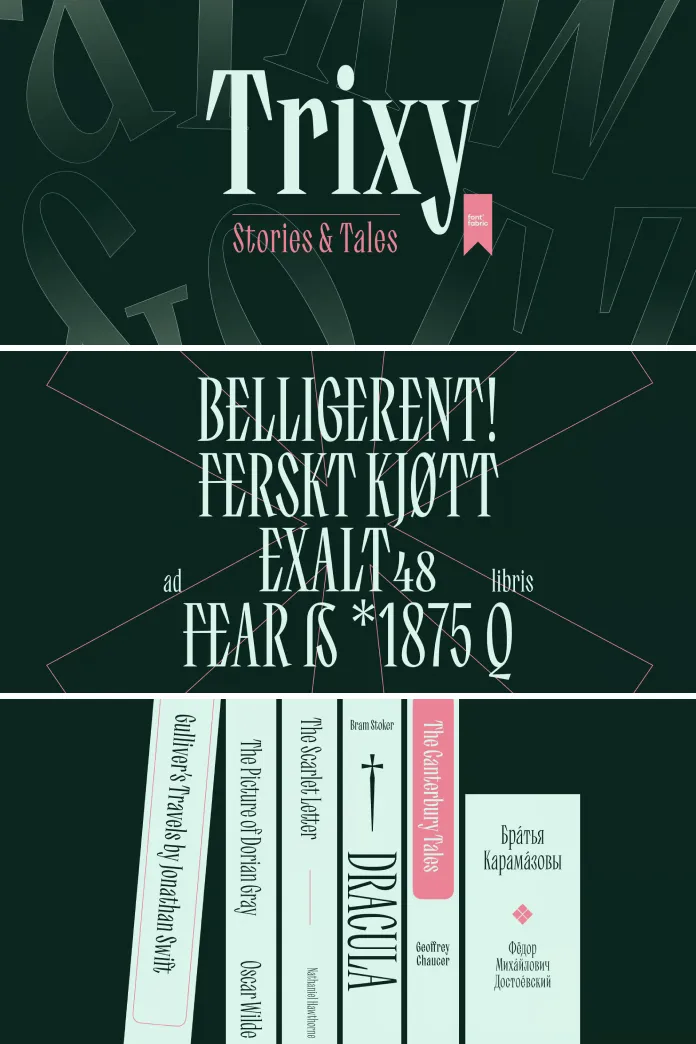
Soviet book covers from the 1950s and 60s were not supposed to be beautiful. They were functional. Yet the designers working under ideological and material constraints produced some of the most daring typographic experiments of the 20th century — condensed letterforms with razor-sharp serifs, extreme vertical stress, and a restless energy that still feels urgent today. The Trixy font family by Fontfabric reaches back into that archive and pulls something genuinely new out of it.
Released in October 2025 and designed by Vika Usmanova and Ivelina Martinova, Trixy is a condensed serif typeface built for expressive display typography. It is not a revival. It is not nostalgia dressed up in OpenType. Trixy is a systematic reinterpretation of experimental mid-20th-century Cyrillic lettering — one that functions as a fully modern, multilingual type system for editorial, packaging, branding, and digital design.
So why does this matter right now? Because the design industry has been simultaneously hungry for two things that seem to contradict each other: historical depth and contemporary precision. Trixy delivers both. And it does so with a structural clarity that makes it as useful as it is visually arresting.
What Makes the Trixy Condensed Serif Different from Every Other Retro-Inspired Typeface?
The retro typography trend is, frankly, exhausted. Scores of foundries have released “vintage-inspired” condensed serifs over the past decade. Most of them follow the same formula — add a few rough edges, choose a warm color palette for the specimen, call it “nostalgic.” Trixy does not do this.
The difference starts with the source material. Type Director Vika Usmanova spent years collecting book covers from Eastern Europe’s mid-20th-century publishing output. She was drawn to a specific typographic sensibility — one where designers made genuinely bold structural decisions rather than decorative ones. Sharp, small horizontal serifs. Massive vertical serifs. Narrow proportions under high contrast. These were not stylistic flourishes. They were solutions to real constraints, and they produced letterforms with a tectonic clarity that typical revival typefaces rarely capture.
Crucially, Usmanova began the design process in Cyrillic, not Latin. This is rare. Most typefaces start in Latin and adapt into Cyrillic as an afterthought. Starting in Cyrillic fundamentally shaped the letterform logic — the proportional decisions, the serif behavior, the rhythm across a line of type. The Latin expansion came later, informed by those Cyrillic bones.
The result is a typeface where the Cyrillic and Latin scripts share a genuine structural DNA. They feel like siblings, not translations. That coherence is one of Trixy’s most underappreciated qualities.
The Two Personalities: Trixy Stories vs. Trixy Tales
The Trixy font family divides into two distinct subfamilies, each with five weights from Light to Bold. Understanding the difference between them is essential for using the family effectively.
Trixy Stories is the more refined of the two. It carries the full weight of Trixy’s condensed serif character but delivers it with a certain editorial composure. Stories includes a rich set of ligatures and stylistic alternates — tools that allow designers to tune the expressiveness of their headlines precisely. When you need Trixy’s personality at a slightly lower volume, Stories is your starting point.
Trixy Tales, meanwhile, pushes further. The details are sharper. The legs on certain characters become elongated, almost swash-like in their gesture. Tales has more eccentricity built into its default forms — more swing, more visual tension, more of that experimental Soviet-era energy that inspired the typeface in the first place.
Think of Stories and Tales not as a light and dark mode, but as two editorial voices within the same authorial tradition. One speaks with precision. The other speaks with theatre.
Trixy Font Weights and the Architecture of a 10-Style System
Ten upright styles across two subfamilies give Trixy a focused, purposeful weight range. This is not a family trying to serve every design scenario. It is a display-focused system with clear typographic intent.
Each subfamily — Stories and Tales — offers Light, Regular, Medium, SemiBold, and Bold. The weight progression feels deliberately calibrated. The lightweights carry Trixy’s condensed proportions with surprising elegance, particularly in editorial contexts where large-scale headlines need to breathe. The Bold weights are, predictably, where the typeface becomes most dramatic — the vertical serifs gain mass, the contrast between thick and thin strokes sharpens, and the overall silhouette becomes almost architectural.
Medium and SemiBold occupy an interesting middle ground. They are versatile enough for subheadings and secondary display text without losing the family’s expressive character. For designers building multi-level typographic hierarchies within a single layout, these intermediate weights do a great deal of structural work.
Trixy distinguishes itself from other condensed serif typefaces through its Cyrillic-first design origin, its dual-subfamily structure (Stories and Tales), and its genuine structural coherence — the condensed proportions, high contrast, and serif behavior are all drawn from the outset rather than applied or compressed mechanically. The historical Cyrillic inspiration gives it a typographic specificity and formal confidence that most revival-inspired condensed serifs lack.